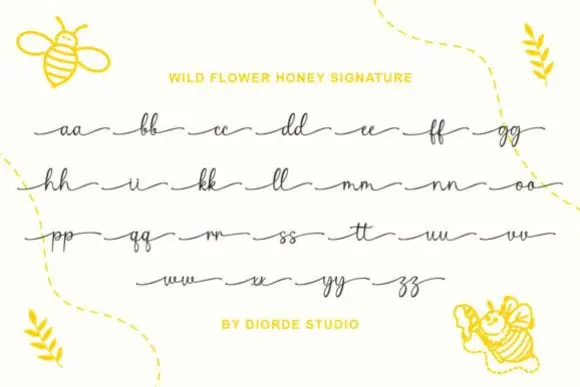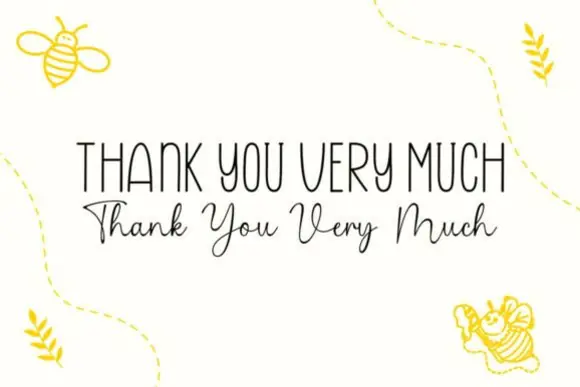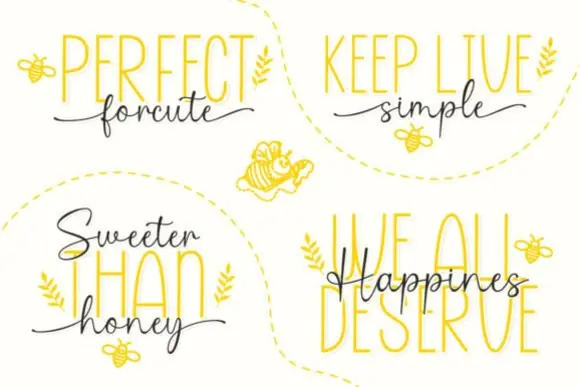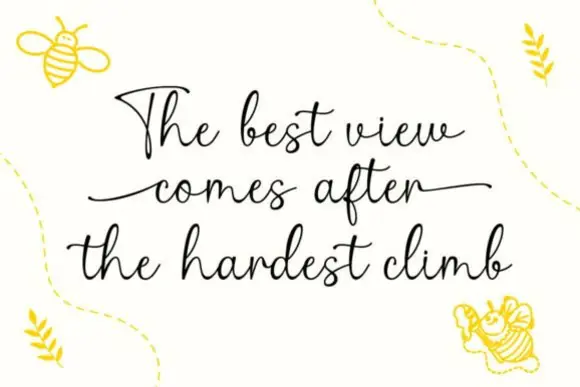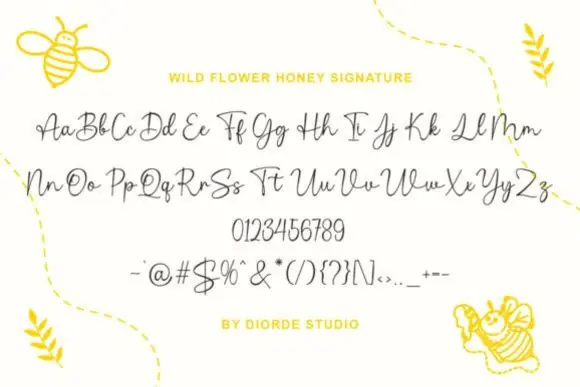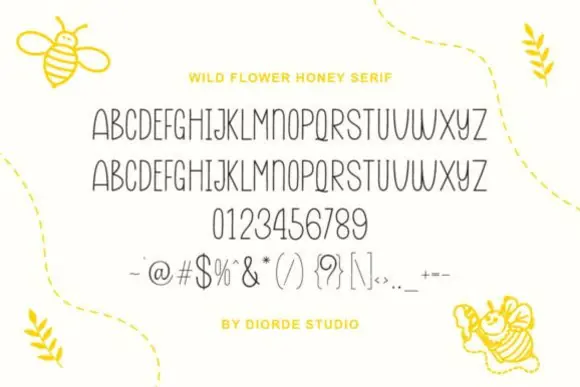
Wild Flower Honey Duo Font – Charming Sans Serif & Handwritten Script Font Pair for Logos, Invitations, Branding, Packaging, Social Media, Quotes, DIY Crafts & Modern Creative Designs
Bring warmth, sweetness, and personality to your designs with Wild Flower Honey Duo Font, a charming font pairing that beautifully combines a clean sans-serif style with an elegant handwritten script. This duo gives you the perfect balance of modern simplicity and soft hand-lettered beauty, making it ideal for creative projects that need a friendly, joyful, and stylish look.
The Honey font features tall, clean, rounded letters that work beautifully for headlines, quotes, logos, and branding designs. It gives your text a bright, cheerful, and approachable feel. The Wildflower script adds a smooth handwritten touch with graceful curves and flowing connections, making your design feel more personal, organic, and elegant.
Together, these two fonts create a naturally harmonious style that works well for logos, invitations, packaging, social media graphics, greeting cards, product labels, DIY projects, quote designs, stickers, printable art, boutique branding, and handmade product designs. Whether you are creating modern brand visuals, wedding stationery, cheerful product packaging, or cozy social media posts, Wild Flower Honey Duo Font helps your words bloom with charm and personality.
Key Features
• Beautiful sans serif and handwritten script font pairing
• Tall, clean, rounded sans-serif style
• Smooth flowing script with soft curves
• Great contrast for modern and stylish designs
• Friendly, cheerful, organic, and uplifting appearance
• Includes uppercase, lowercase, numbers, and punctuation